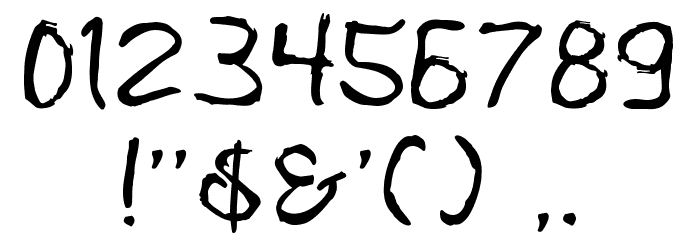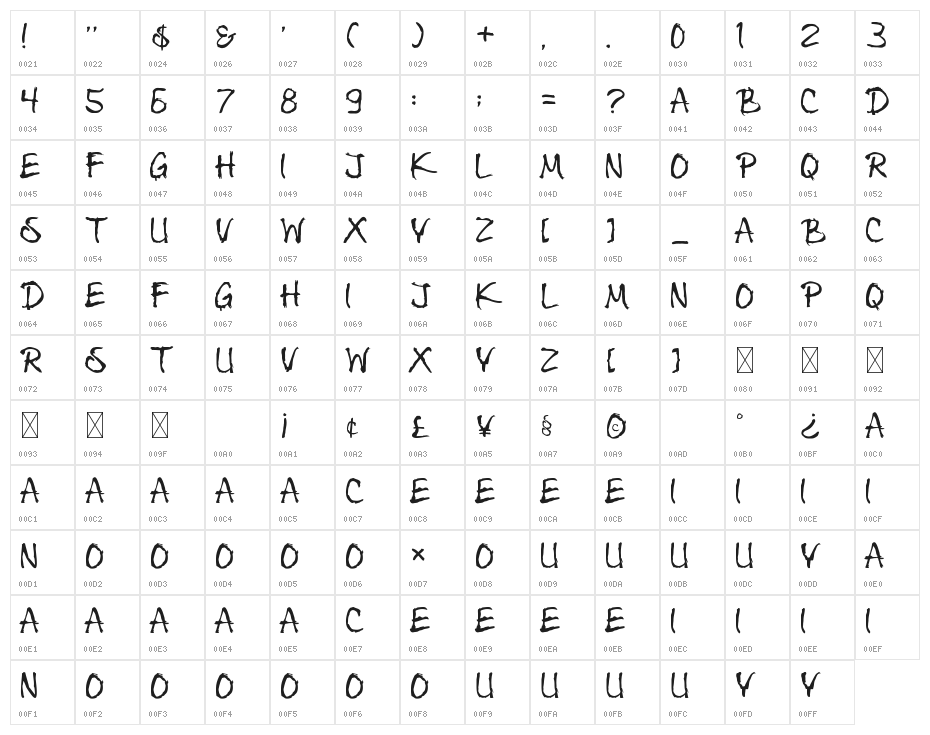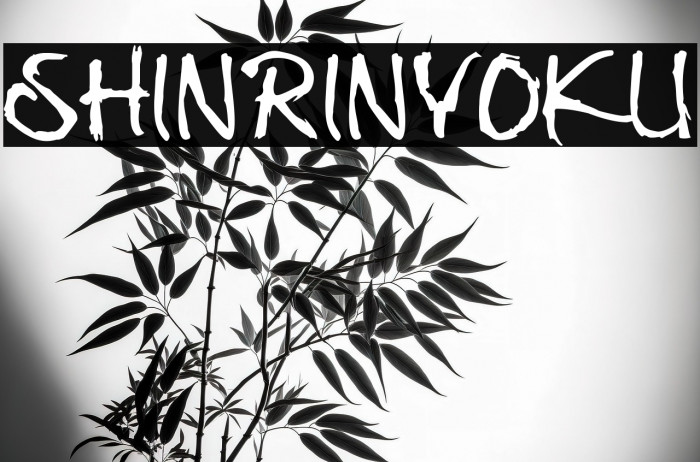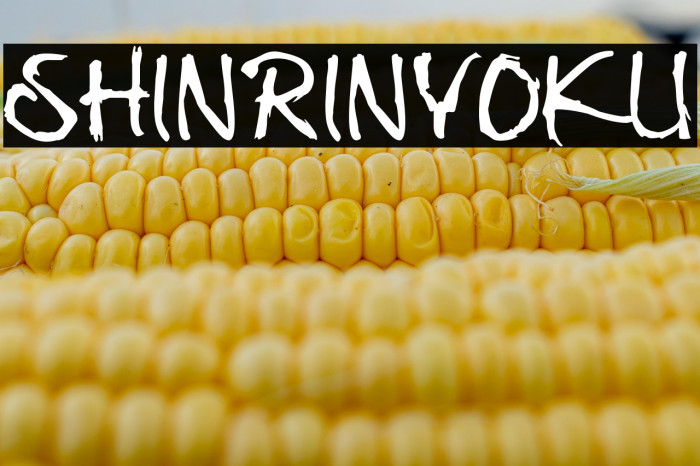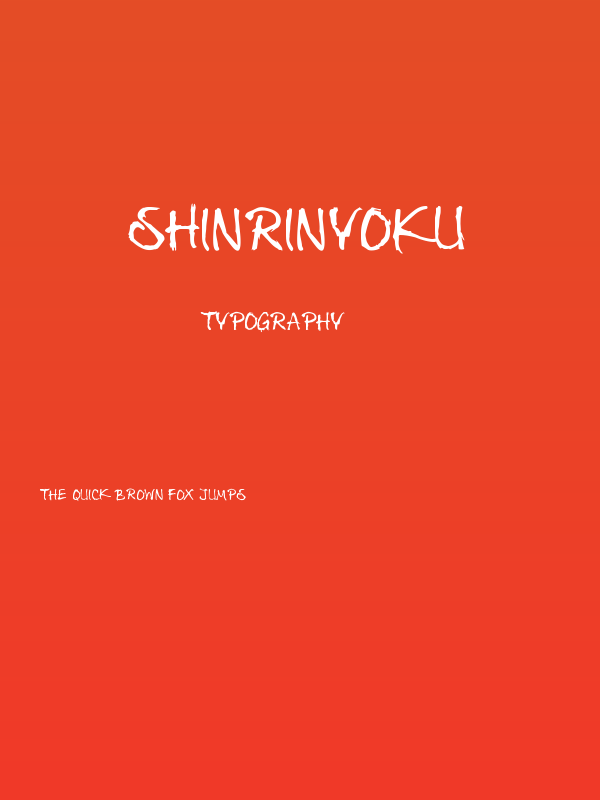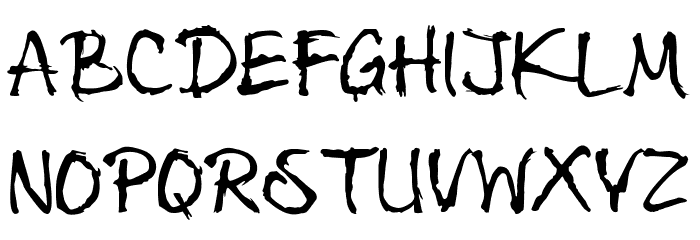
Shinrinyoku Font
Shinrinyoku Description
This font exudes a raw, organic feel with its brush-like strokes and uneven edges, reminiscent of hand-painted signs. The characters are bold and expressive, each letter showcasing a unique personality with varying thickness and slight irregularities that add to its charm. The uppercase and lowercase letters maintain a consistent style, while the numerals and special characters blend seamlessly into the overall design. This font's distinctiveness lies in its ability to convey a sense of authenticity and creativity, making it ideal for projects that require a personal touch.